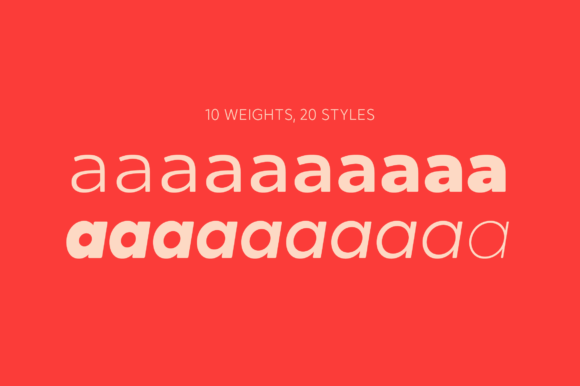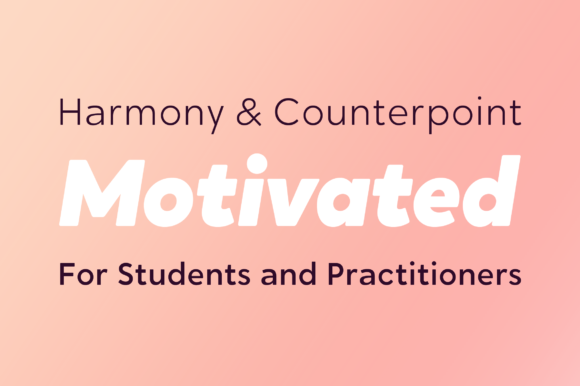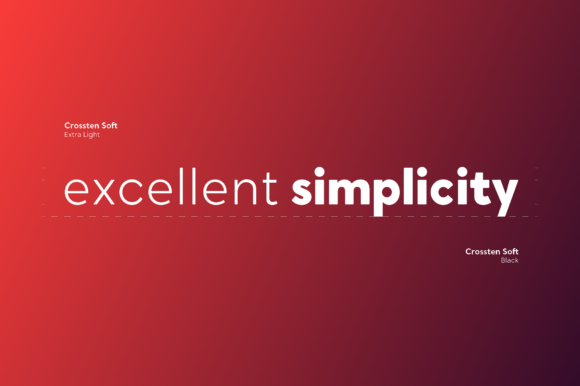
Crossten Soft Font
About the Crossten Soft Font
We are excited to introduce Crossten Soft Font, a must-have typeface for any serious designer. Crossten Soft is a delicate and thin lettered sans serif font. No matter the topic, this font will be an incredible asset to your fonts’ library, as it has the potential to elevate any creation.
Crossten Soft’s delicate nature makes it ideal for short headlines, logos, and branding elements where a touch of elegance is desired. It works particularly well in projects emphasizing sophistication, minimalism, or a gentle, feminine aesthetic. Avoid using it for large blocks of body text or UI elements; its thin strokes will become difficult to read at smaller sizes.
For optimal impact, pair Crossten Soft with a contrasting, slightly bolder sans-serif like Montserrat for a modern feel, or a classic serif such as Garamond for a more traditional yet balanced look. A script font like Allura could also add a touch of flair for specific applications, such as elegant invitations or packaging.
Its overall personality is refined and understated, conveying a sense of quiet sophistication and calm confidence. It’s best suited for brands and projects aiming for a sophisticated, yet approachable image.